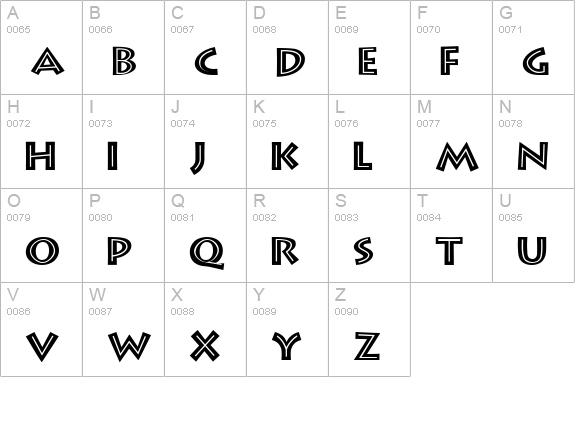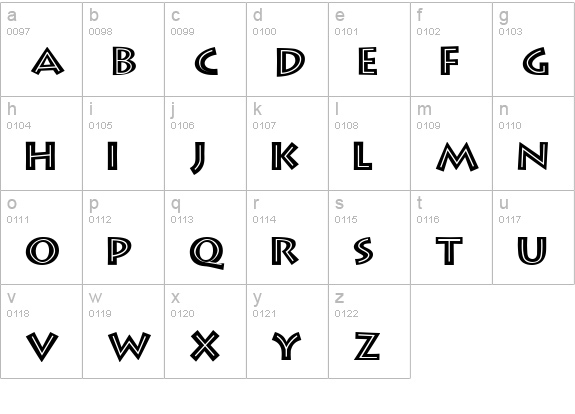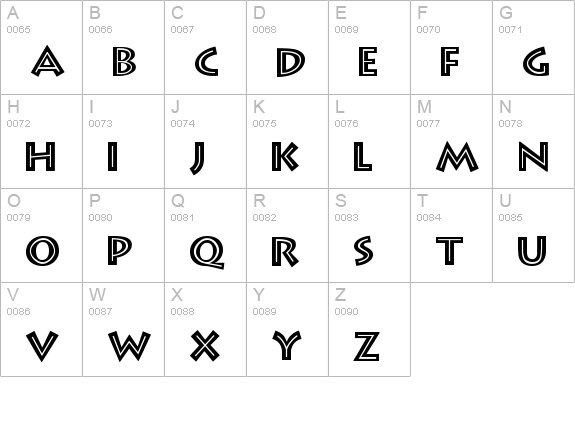
Greek Diner Inline TT font is a stylish and elegant typeface that exudes a classic charm with a modern twist. This font features intricate inline detailing that adds a unique flair to any design project. With its clean lines and timeless appeal, Greek Diner Inline TT font is perfect for creating eye-catching headlines, logos, and branding materials. The best part? This stunning font is available for free download at FontsMarket.com. Whether you're working on a personal project or a professional design, Greek Diner Inline TT font is a versatile choice that will elevate your work to the next level. Don't miss out on this opportunity to add a touch of sophistication to your designs with this beautiful font. Download Greek Diner Inline TT font today and start creating stunning visuals that stand out from the crowd.